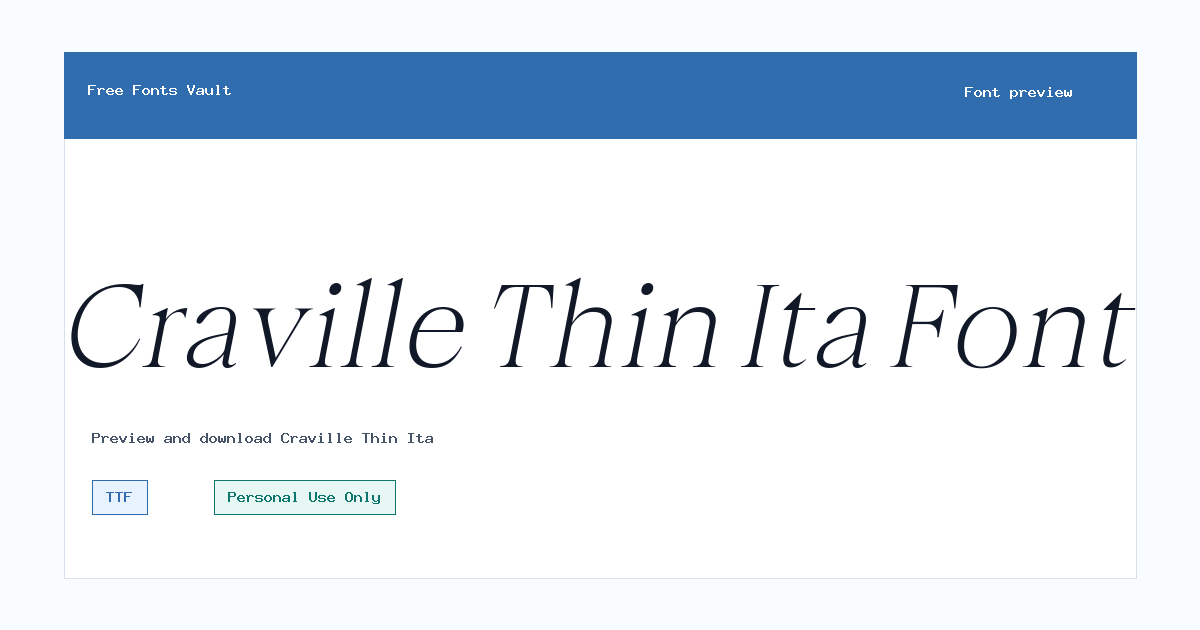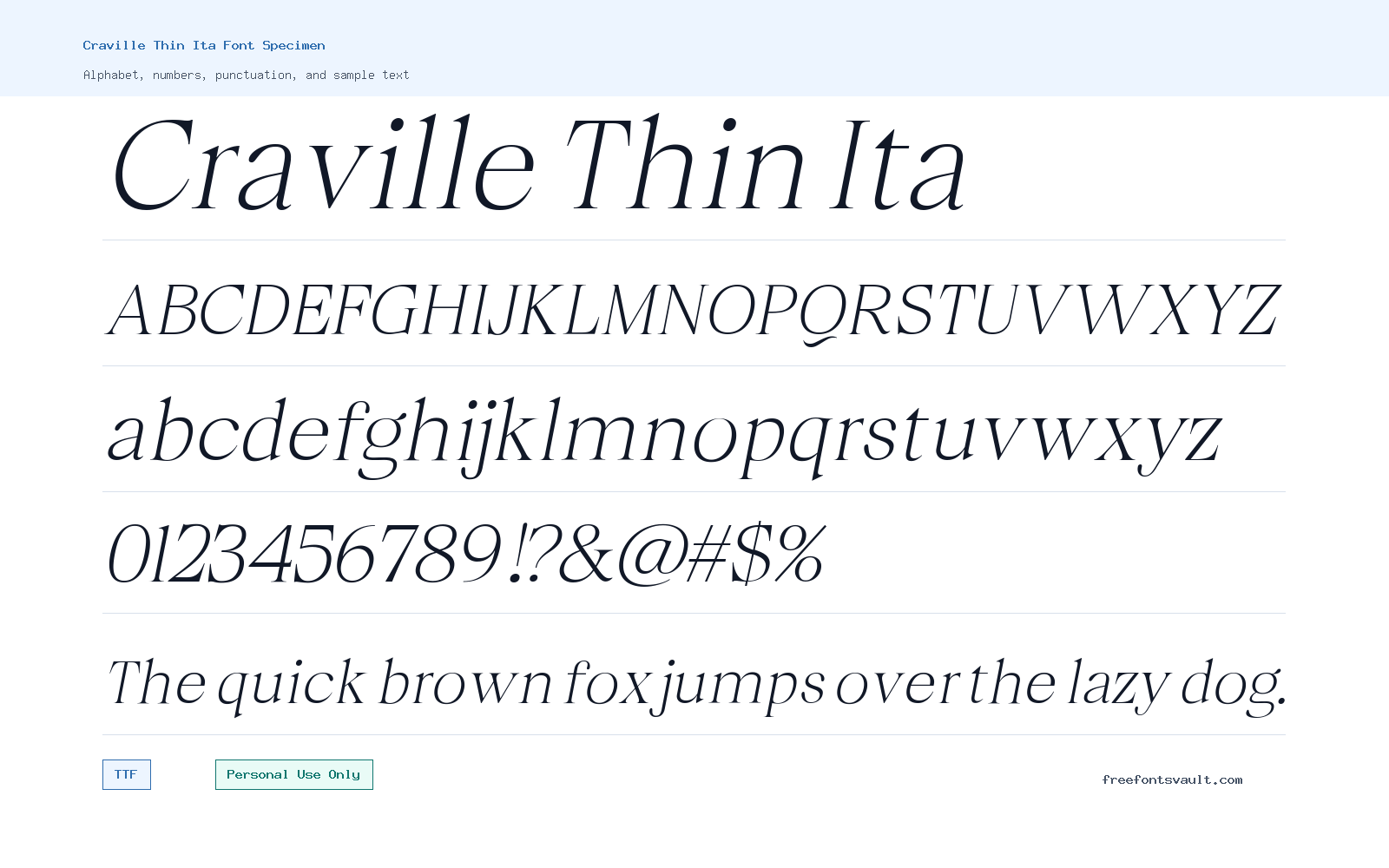
Craville Thin Ita
- Designer Glyphminds Studio (Graphicted.Co)
Craville Thin Ita is a thin italic serif font with a light, slanted style suited to elegant display work, personal design drafts, and refined short-form typography.
About Craville Thin Ita Font
Craville Thin Ita uses a 100-weight italic style, so its personality comes from light strokes, angled letterforms, and a quieter serif look rather than heavy decoration. That makes it useful when you want text to feel graceful without making the design look crowded. Because the weight is very thin, it is best treated as a display font for words, names, headings, short phrases, and visual accents. It can bring a polished tone to fashion-inspired layouts, invitation concepts, editorial mockups, quote graphics, product labels, and personal branding studies where the text does not need to carry long reading passages.
For logo work and poster layouts, test Craville Thin Ita at larger sizes first. Thin italic fonts can look beautiful in spacious compositions, but they may lose detail when used too small, placed on busy images, or printed with low contrast. Try it for a single headline, a monogram-style name treatment, a short tagline, or a large hero word in a web mockup. If you use it in a preview tool, check uppercase and lowercase forms, punctuation, numbers, and the exact words you plan to design with. The font is provided as a TTF file, a common desktop font format supported by most design software, but web use may require conversion and proper licensing.
- Thin 100-weight serif style with italic letterforms for light, refined display typography.
- Suited to short text settings where spacing, scale, and contrast can be carefully controlled.
- Works well as an accent face beside simpler serif or sans serif fonts.
- Personal logo concepts and name-based branding drafts
- Poster titles, quote graphics, and social media visuals
- Fashion, beauty, wedding, and editorial-style mockups
- Invitation headings, stationery previews, and elegant title text
- Website hero mockups where the font is used large and sparingly
- Product label concepts and packaging studies for personal projects
Use Craville Thin Ita at medium to large sizes and give it enough space around the letters. Thin italic strokes need strong contrast against the background, so avoid placing the font over detailed photos unless you add a clean overlay or a simple text panel. For pairing, keep the supporting typeface restrained. A neutral sans serif can make the italic serif feel cleaner in web mockups, while a readable text serif can work for invitations or editorial layouts. Avoid pairing it with another highly decorative script or ornate serif unless the design is intentionally elaborate, because two expressive fonts can compete quickly. For longer paragraphs, choose a sturdier font and reserve Craville Thin Ita for headings, pull quotes, initials, or short highlight text.
What kind of font is Craville Thin Ita?
It is a thin italic serif font. The available style has a 100 font weight and slanted italic forms.
Is Craville Thin Ita good for body text?
It is better for display text than body copy. The thin italic style may become hard to read in long paragraphs or at small sizes.